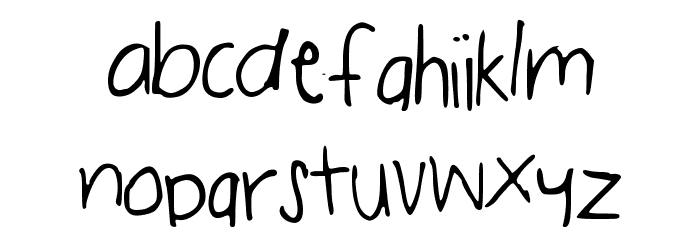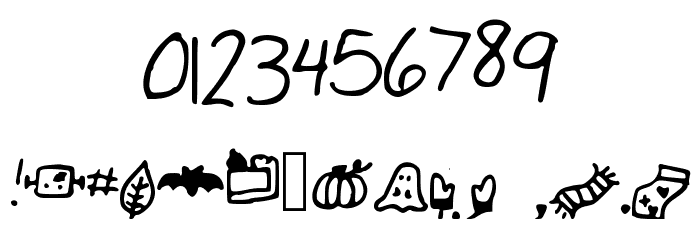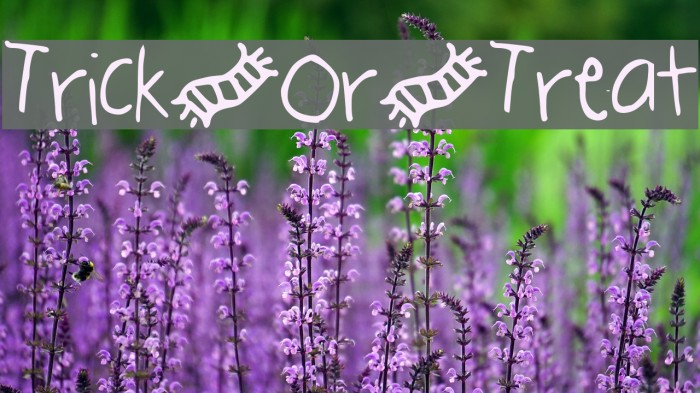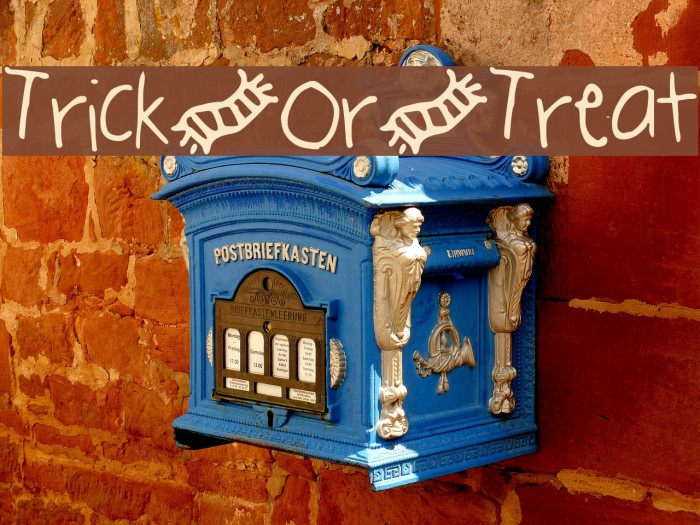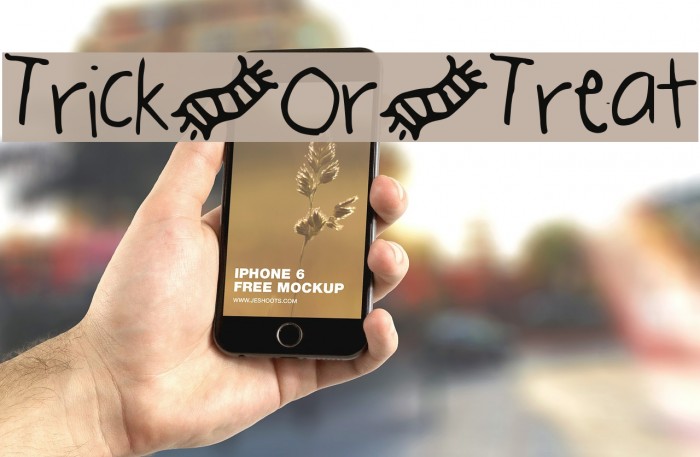
Trick-Or-Treat Font
This playful and whimsical font captures the essence of a spooky Halloween theme with its hand-drawn, uneven strokes and quirky character shapes. The letters are slightly irregular, giving it a casual and fun appearance, perfect for festive occasions. The uppercase and lowercase letters maintain a consistent style, with a slight tilt and varying line thickness that adds to its charm. The numbers and special characters are equally playful, featuring unique designs that complement the overall theme. The font's decorative elements, such as bats, pumpkins, and ghosts, enhance its Halloween appeal, making it ideal for themed projects.
A playful, hand-drawn font with a spooky Halloween theme.